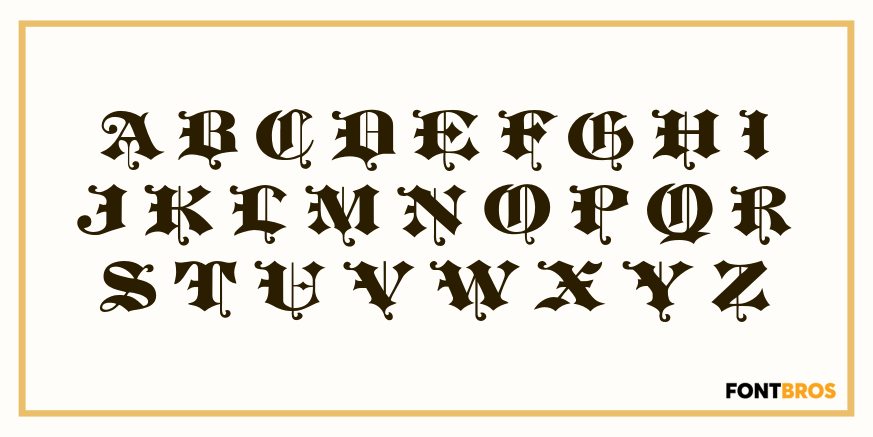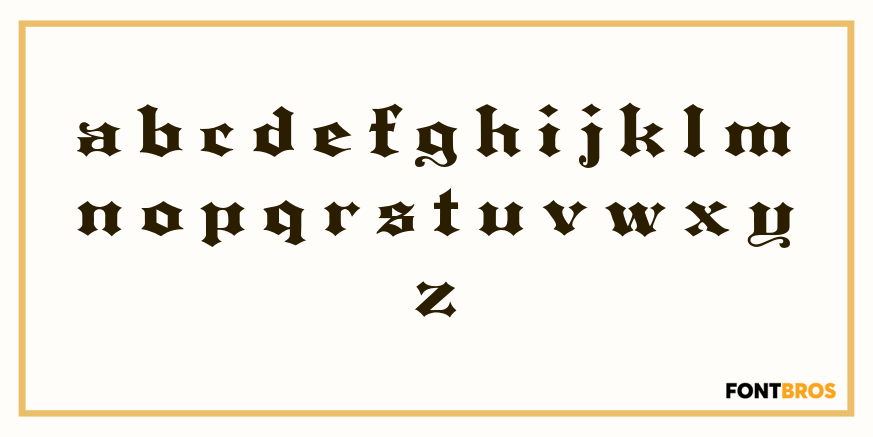
Harlem Text
Font Family by Solotype
This bold blackletter is rather wide, which enhances its readability. In Victorian job printing it was not unusual to find one line of blackletter in a card or handbill, just for contrast.
This one came on the scene sometime in the 1880s.